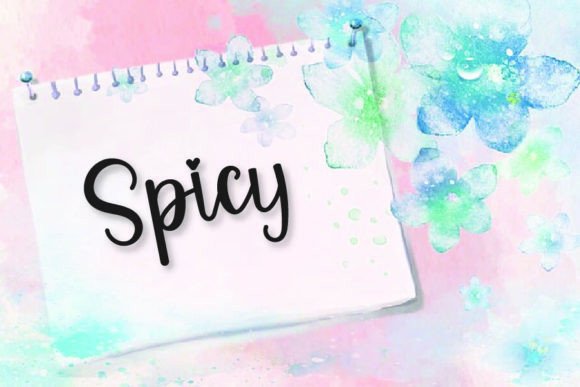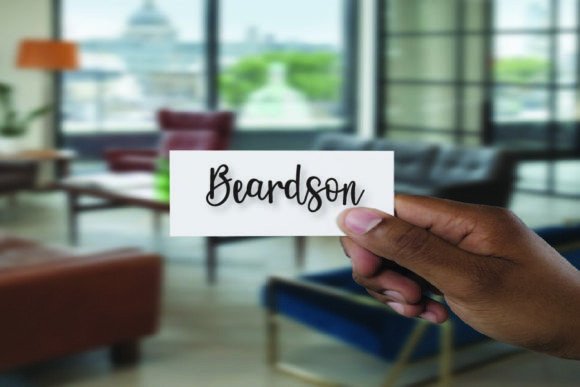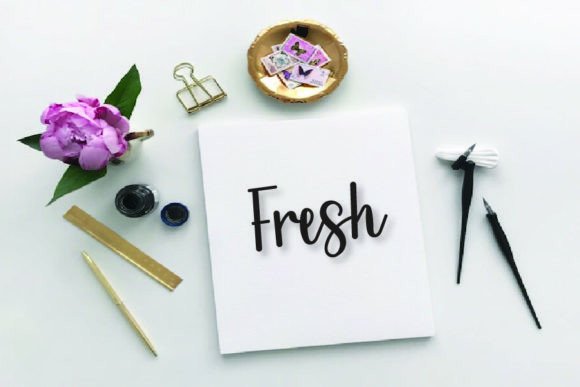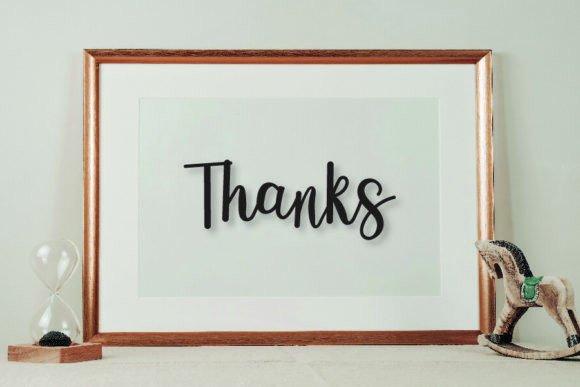
The Daisy Font: A Delightful Addition to Your Creative Projects
I’ll never forget the time I was working on a handmade greeting card for a friend’s birthday. I had the perfect design in mind, but something was missing – a font that would tie everything together. That’s when I stumbled upon the Daisy font, and it instantly became the star of the show! With its fun and versatile handwritten style, it’s perfect for a wide range of creative projects, from crafting and digital designing to presentations and greeting card making.
An Honest Review of Daisy Font
What I Love About Daisy Font
- ✨ Playful and whimsical feel: The Daisy font has a carefree, handwritten vibe that’s perfect for adding a personal touch to your designs.
- ✅ Highly versatile: Whether you’re creating digital content or handmade crafts, this font adapts seamlessly to different mediums and styles.
- 💫 Elegant yet casual: The Daisy’s flowing lines and gentle curves make it suitable for both formal and informal projects.
While the Daisy font is an excellent choice for many projects, there are a few things to keep in mind:
- ⚠️ Limited use in very formal contexts: Due to its playful nature, the Daisy font might not be the best fit for very formal or professional projects, such as corporate reports or academic papers.
- 🤔 Glyph compatibility: Some glyphs or special characters might not work as expected in certain software or platforms, so it’s essential to test the font thoroughly before finalizing your design.
The Story Behind Daisy Font
While the origins of the Daisy font are not well-documented, it’s clear that it was designed with creativity and versatility in mind. The font’s playful yet elegant style makes it a popular choice among designers and crafters. Whether it was inspired by handwritten notes, flower names, or something else entirely, the Daisy font has captured the hearts of many creatives.
Q: What type of projects is the Daisy font best suited for?
A: The Daisy font is perfect for a wide range of creative projects, including crafting, digital designing, presentations, and greeting card making.
Q: Is the Daisy font available in different styles or weights?
A: The standard version of the Daisy font may not have multiple styles or weights, but you can experiment with different OpenType features and glyphs to achieve variations.